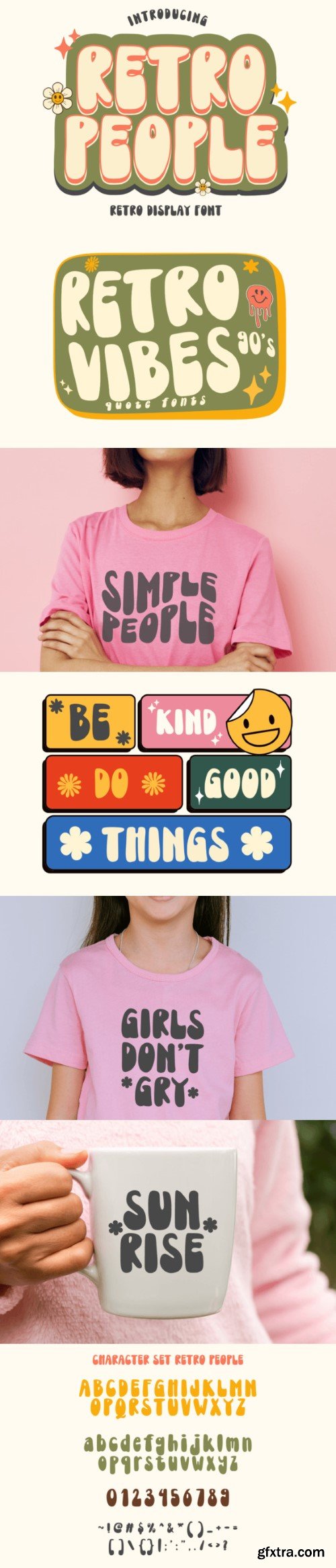
Retro People is a retro font with a cute and cool appearance, this font is very suitable for quotes, t-shirts, mugs, children’s t-shirts, packaging, headlines, crafts, hoodies, tumblers, posters, and many others